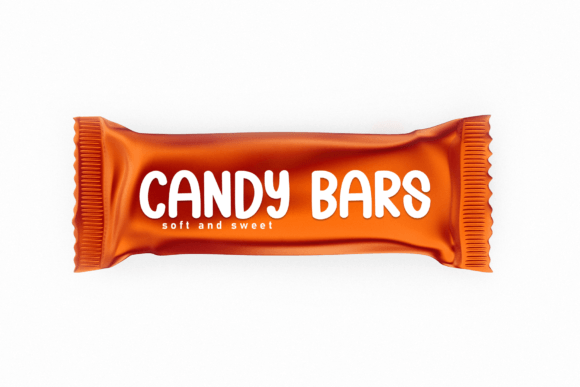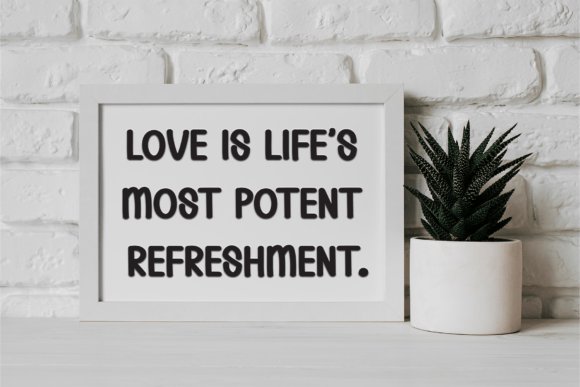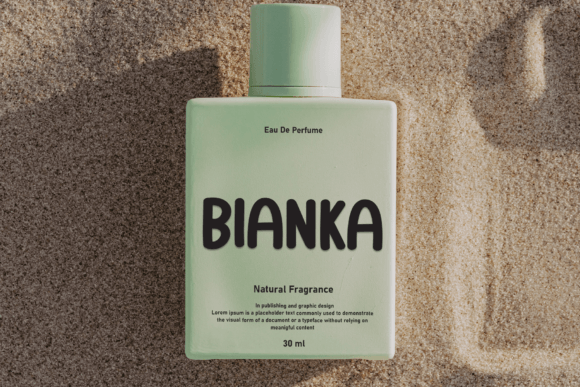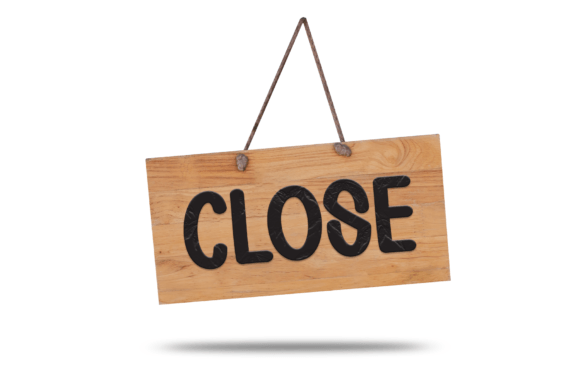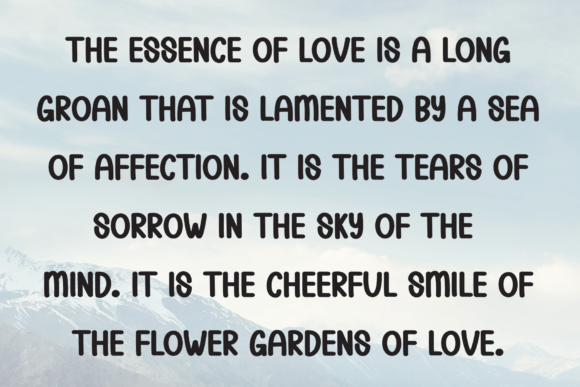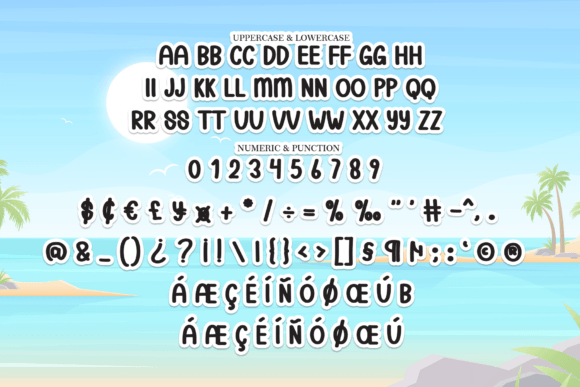
Introducing Beach Font: The Sweet and Friendly Handwritten Display Font
Are you looking for a font that can add a touch of fun and whimsy to your designs? Look no further than Beach Font, a sweet and friendly handwritten display font that’s perfect for a variety of creative projects. In this article, we’ll take a closer look at Beach Font, its features, and how you can use it to elevate your designs.
What is Beach Font?
Beach Font is a beautiful, handwritten display font that’s designed to bring a sense of joy and playfulness to your designs. With its cute and fun lettering style, this font is ideal for writing wedding invitations, cards, or any other design that might need a fun touch. Whether you’re a designer, crafter, or DIY enthusiast, Beach Font is a great addition to your font collection.
Key Features of Beach Font
- Handwritten style: Beach Font has a beautiful, handwritten style that’s perfect for creating unique and personalized designs.
- Cute and fun: This font is designed to be playful and fun, making it perfect for designs that need a touch of whimsy.
- Display font: Beach Font is a display font, which means it’s designed to be used at larger sizes, making it perfect for headings, titles, and other design elements.
- Easy to read: Despite its playful style, Beach Font is easy to read, making it perfect for use in a variety of designs, from wedding invitations to blog posts.
Uses for Beach Font
Beach Font is a versatile font that can be used in a variety of creative projects, including:
- Wedding invitations: Beach Font is perfect for creating beautiful, personalized wedding invitations that set the tone for a fun and playful wedding celebration.
- Cards and stationery: This font is great for creating cute and fun cards and stationery for special occasions, such as birthdays, holidays, and more.
- Social media graphics: Beach Font can be used to create eye-catching social media graphics, such as Facebook posts, Instagram stories, and more.
- Blog posts
: This font can be used to add a touch of personality to blog posts, making them more engaging and fun to read.
Tips for Using Beach Font
Here are a few tips for using Beach Font in your designs:
- Use it sparingly: Beach Font is a display font, so it’s best to use it sparingly to add emphasis and interest to your designs.
- Pair it with other fonts: Beach Font can be paired with other fonts to create a unique and interesting design. Try pairing it with a sans-serif font for a fun and modern look.
- Experiment with colors: Beach Font looks great in a variety of colors, so don’t be afraid to experiment and find the perfect color for your design.
Beach Font is a sweet and friendly handwritten display font that’s perfect for adding a touch of fun and whimsy to your designs. With its cute and playful lettering style, this font is ideal for a variety of creative projects, from wedding invitations to social media graphics. Whether you’re a designer, crafter, or DIY enthusiast, Beach Font is a great addition to your font collection.